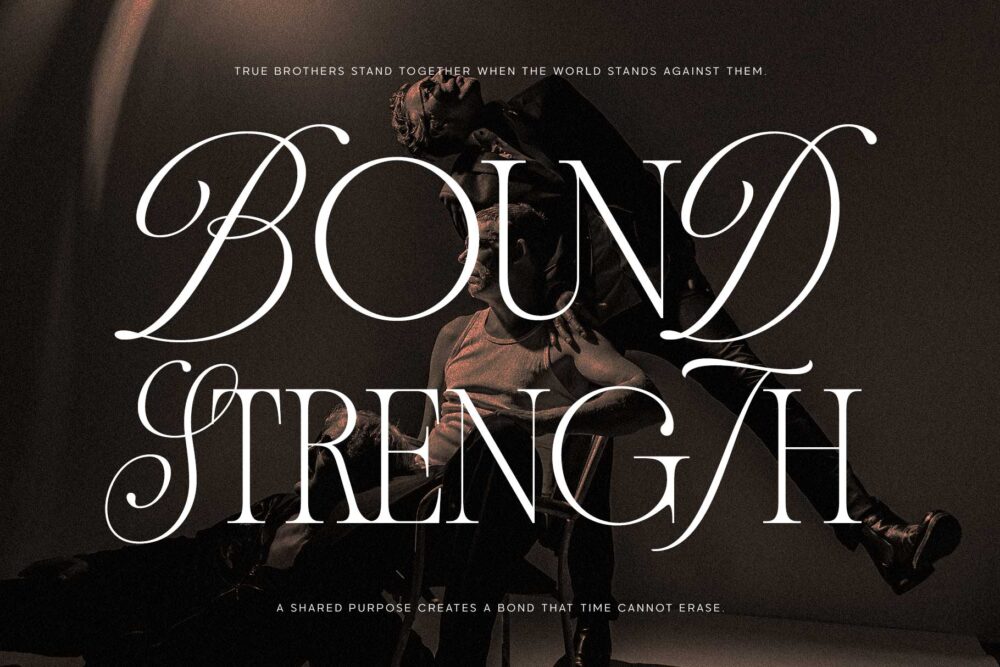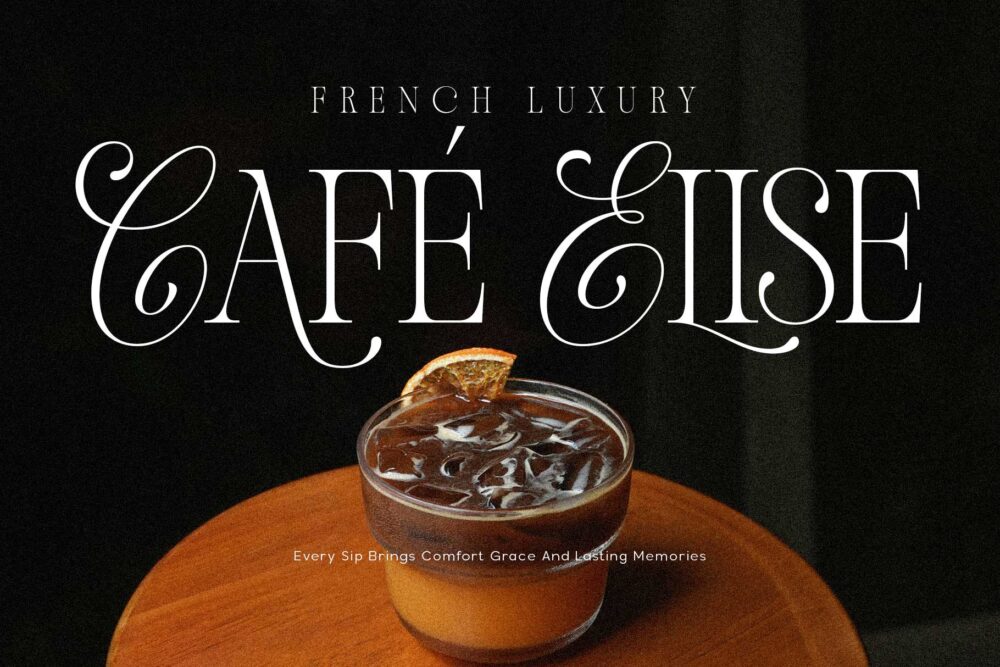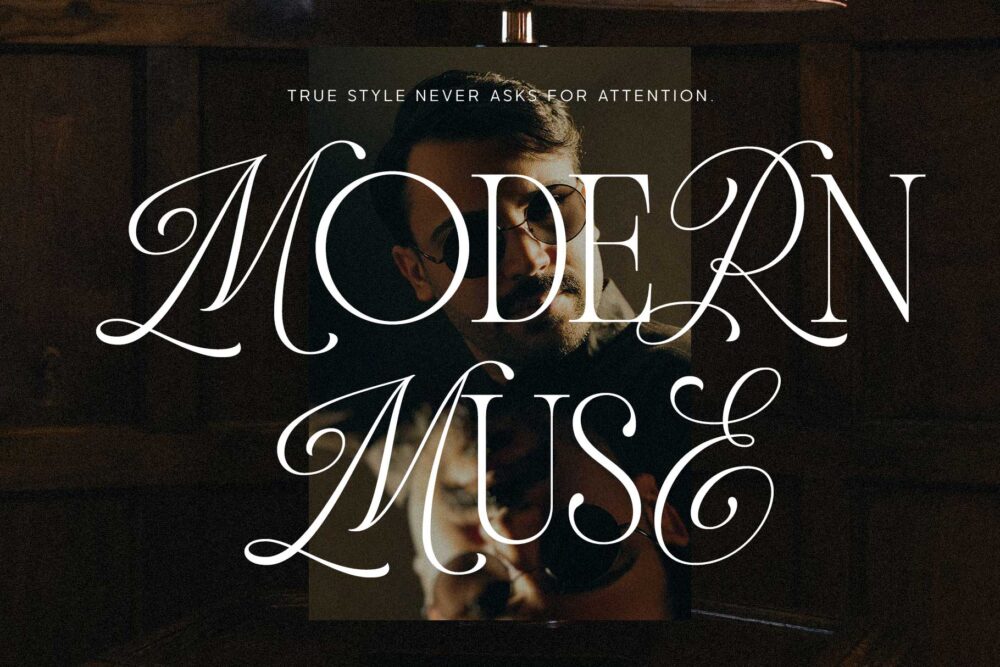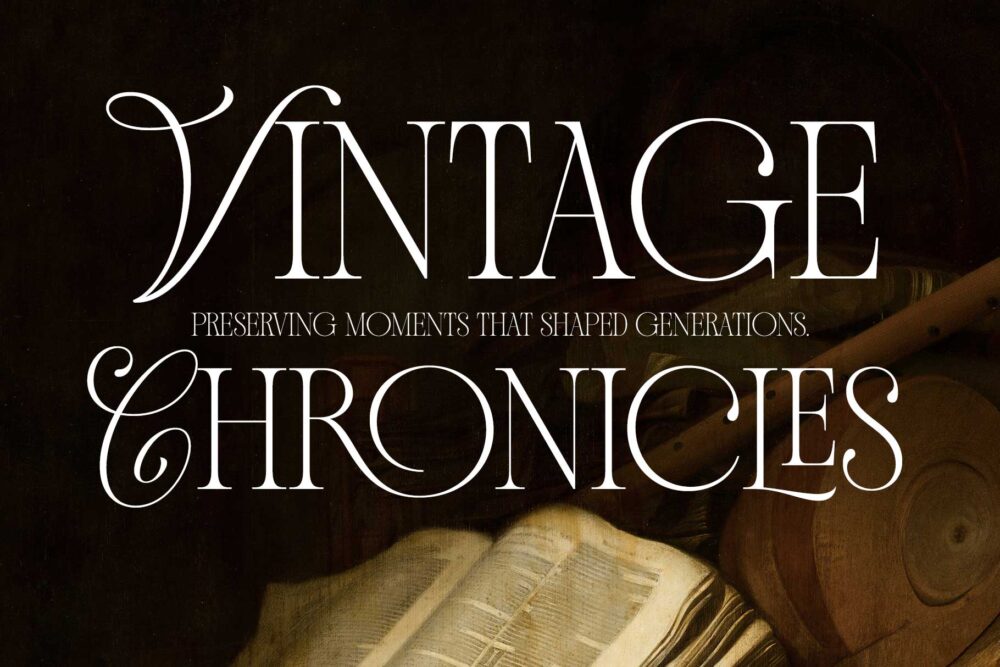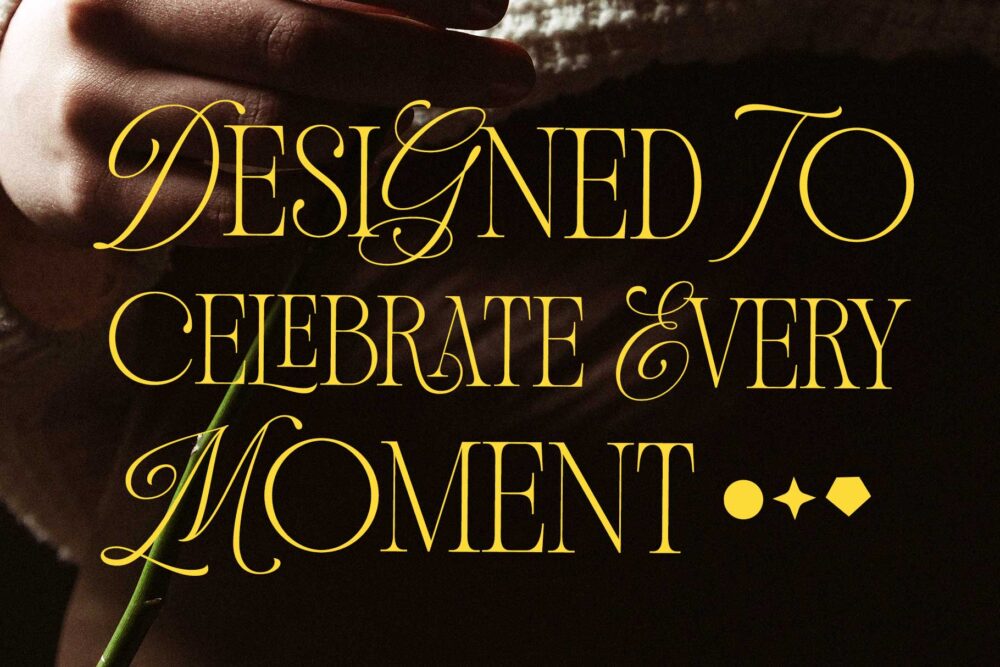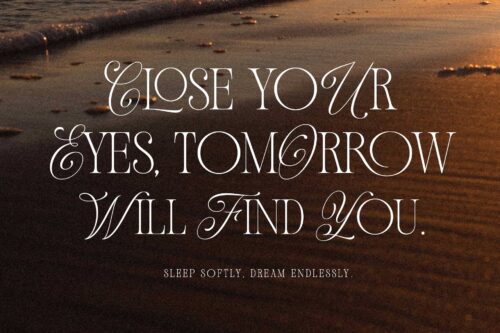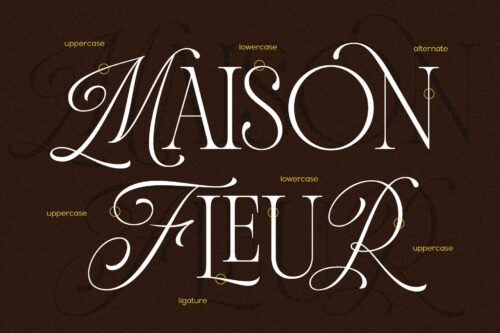
Andiena Bielsa
Andiena Bielsa is a modern classic hybrid font that blends the elegance of a refined serif with the soft, expressive touch of script details. The result is a typeface that feels graceful without being overdone—perfect for creating designs with a luxurious and timeless look. Whether you’re working on branding, editorial layouts, wedding stationery, packaging, or social media, Andiena Bielsa adds just the right amount of character while staying clean and easy to read.
What makes Andiena Bielsa stand out is its collection of carefully crafted alternates and ligatures, giving you the freedom to create lettering that feels unique and naturally flowing. Swap in alternate characters or let the ligatures do the work to build beautiful headlines, logos, and wordmarks in just a few clicks. It’s a versatile font made for designers who love classic elegance with a fresh, contemporary feel.
– Uppercase (Script style)
– Lowercase (Serif style)
– Stylistic alternates
– Stylistic set 01-03
– Ligatures
– Multilingual support